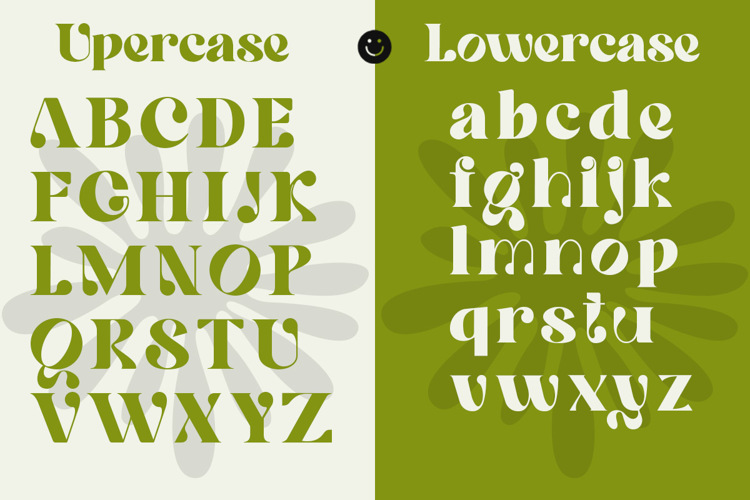
Quowist Display Font
Quowist Display - Modern Unique Serif Display Font
Quowist Display is a modern unique serif display font designed to create strong visual impact with refined elegance. Featuring high-contrast strokes, sharp serif details, and contemporary proportions, this serif typeface brings a luxurious and artistic feel to any design. It is carefully crafted to help designers build premium branding and sophisticated typography compositions.